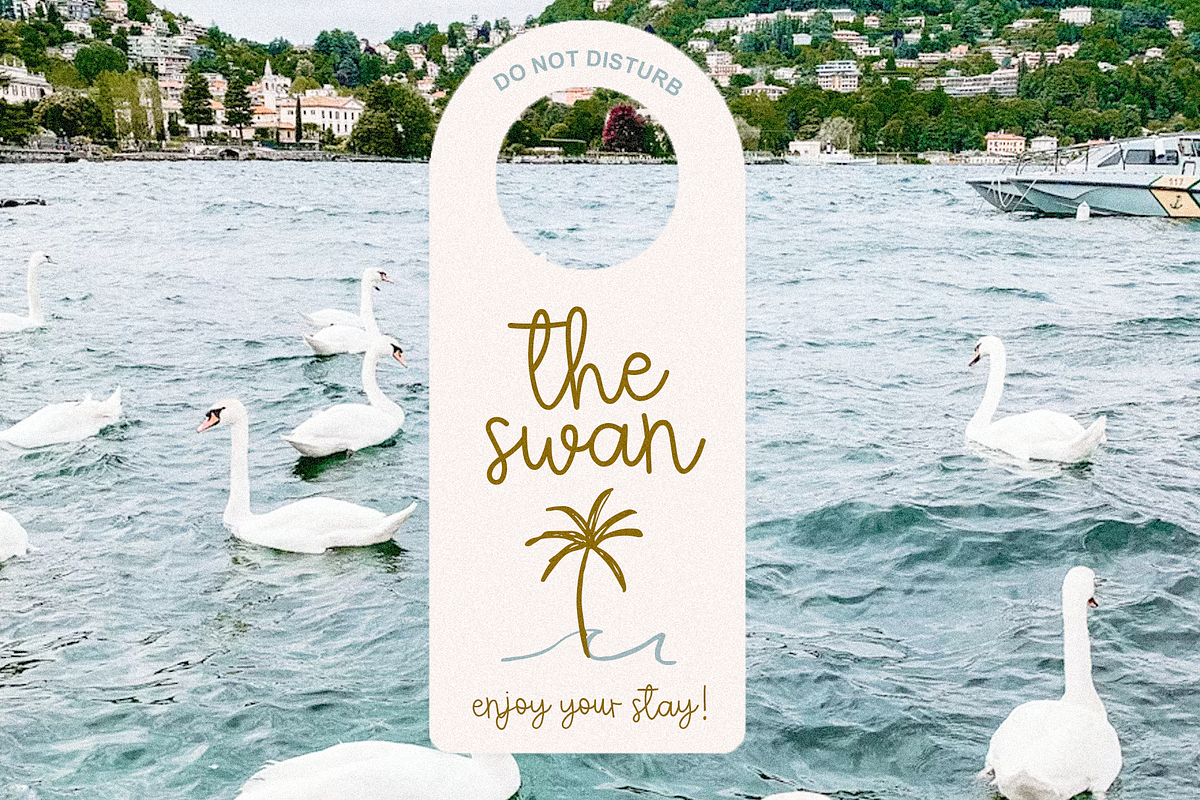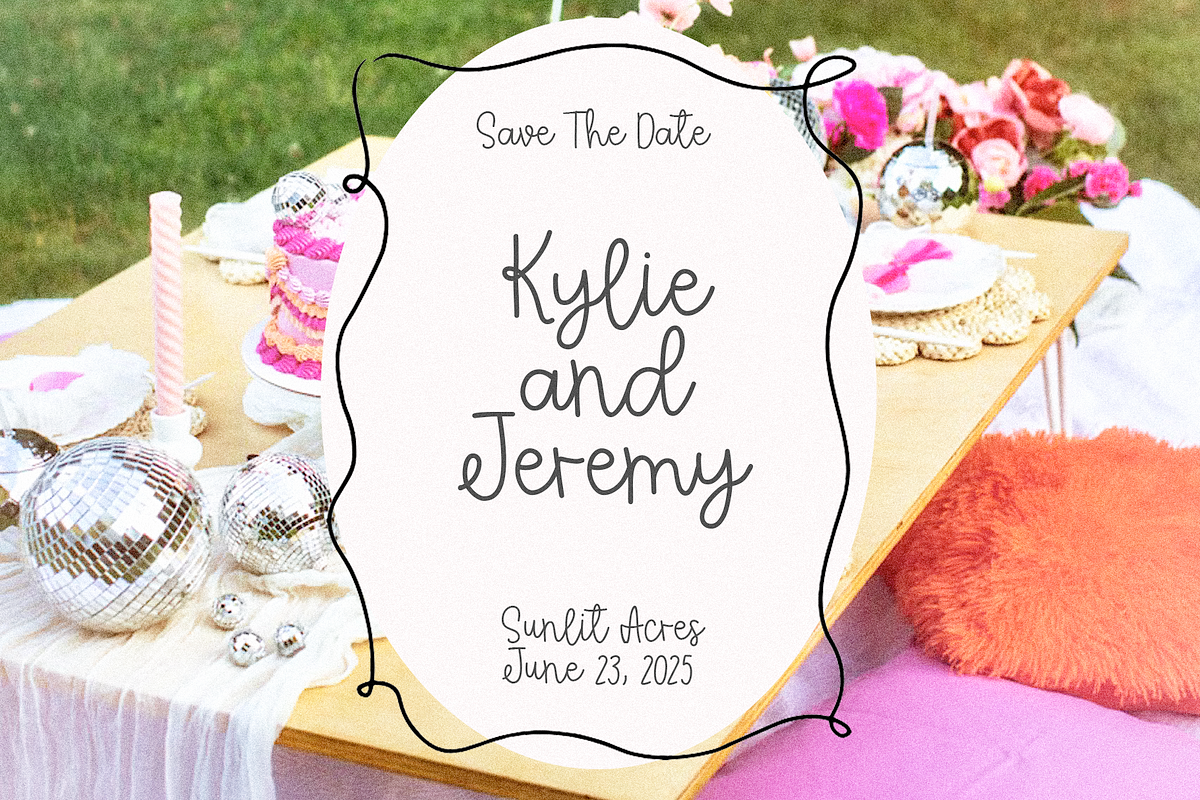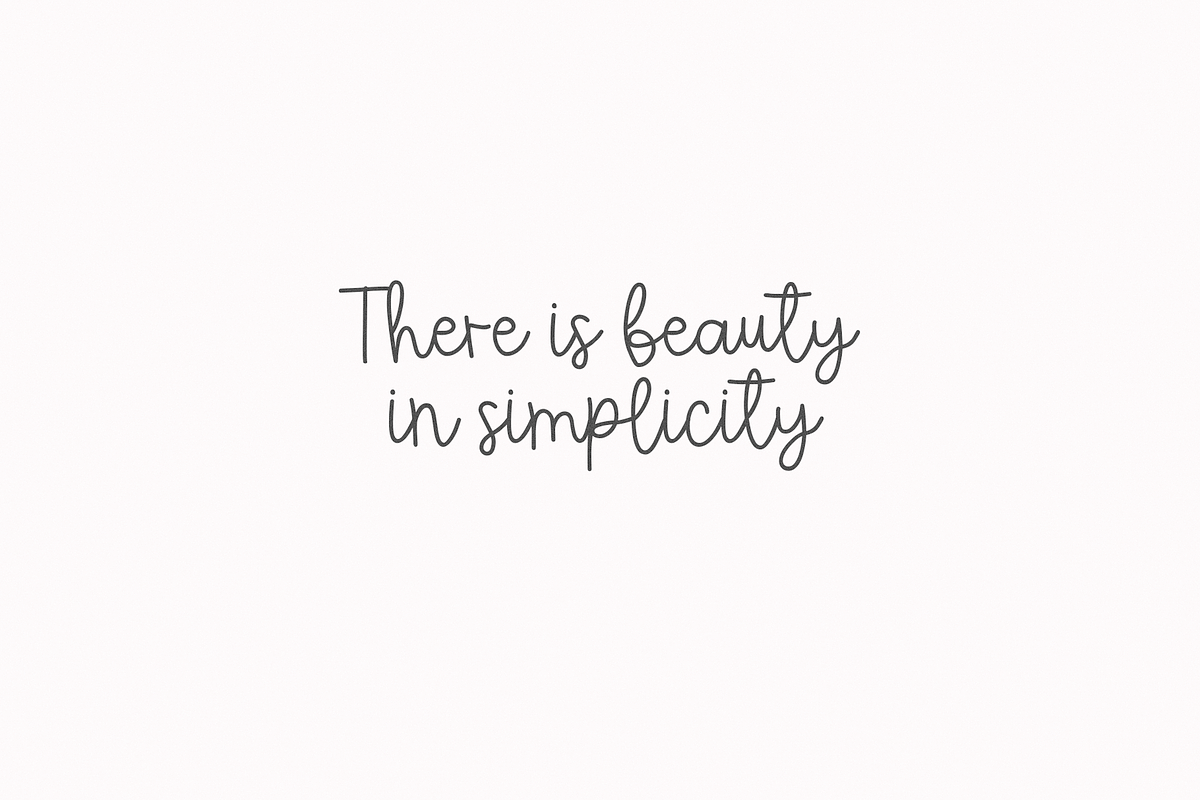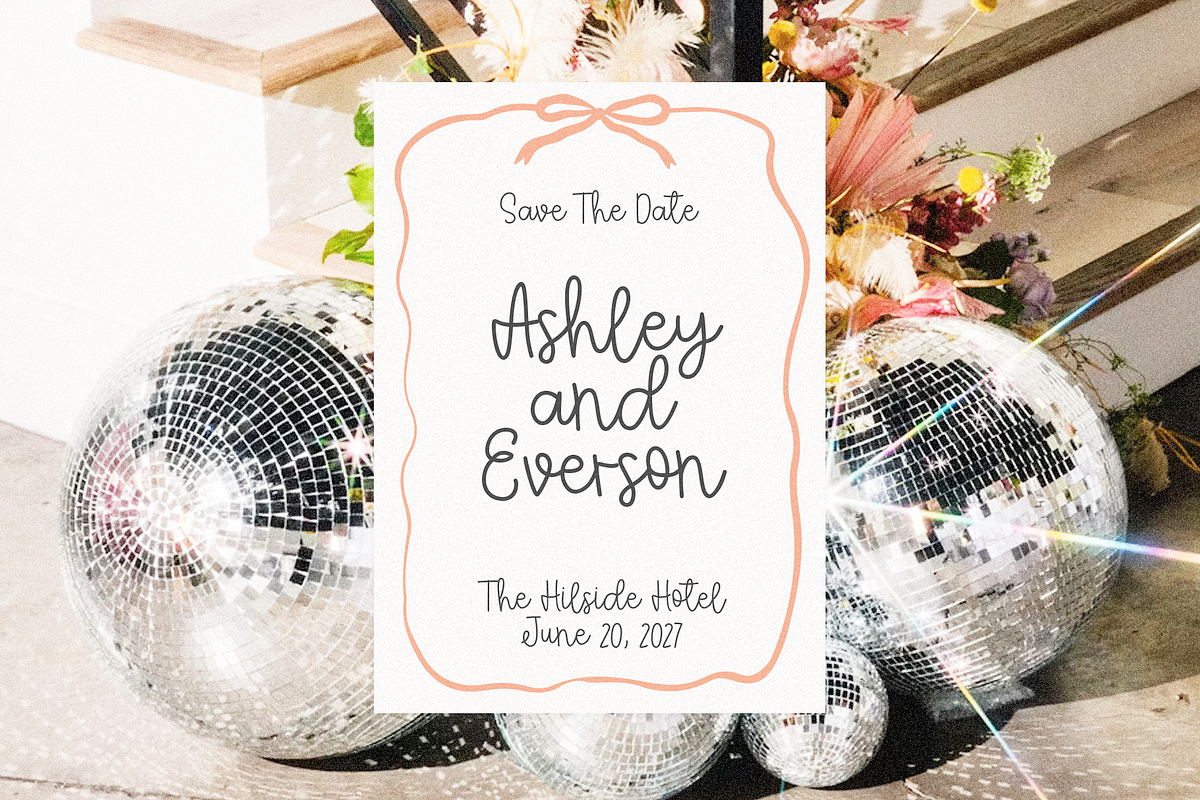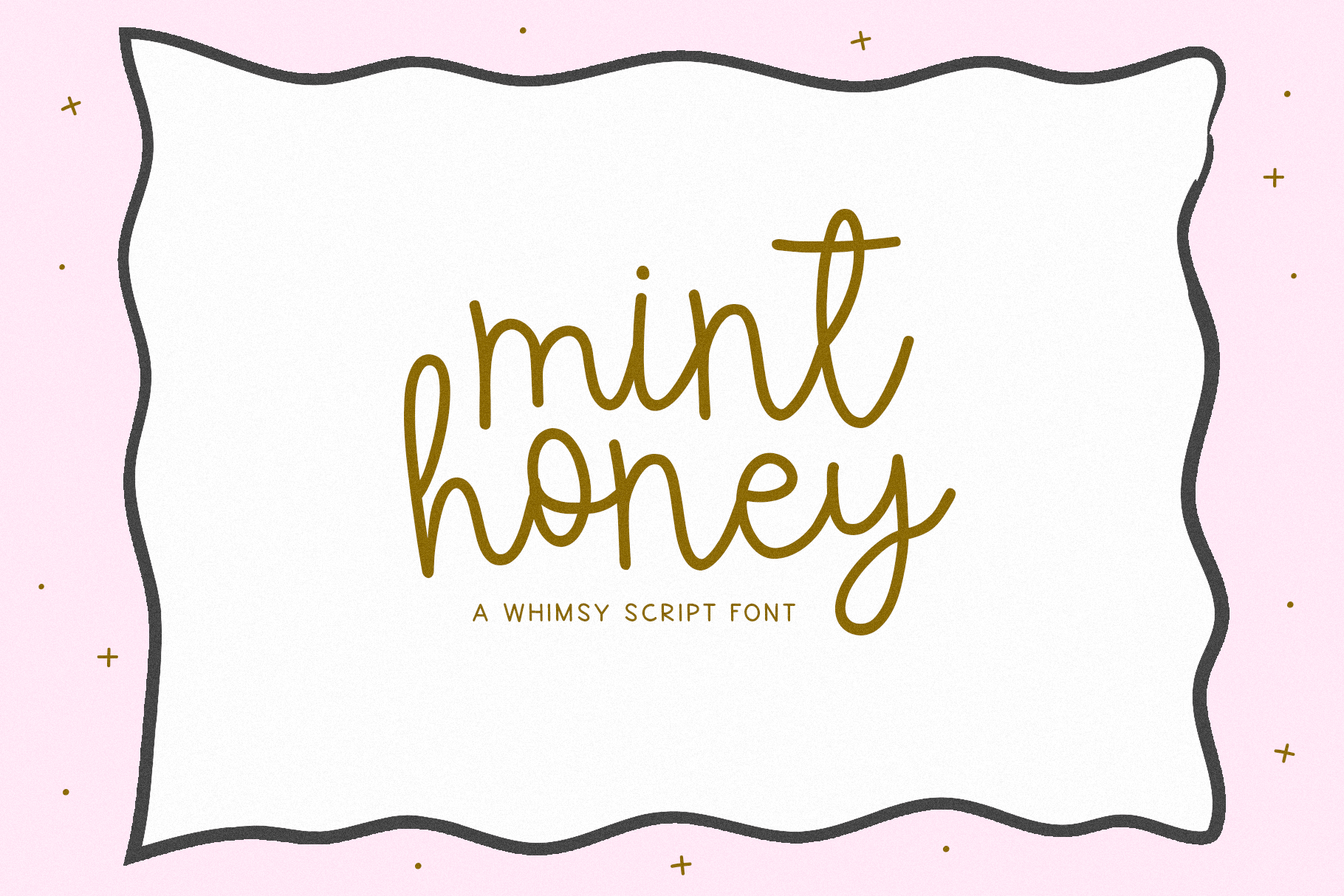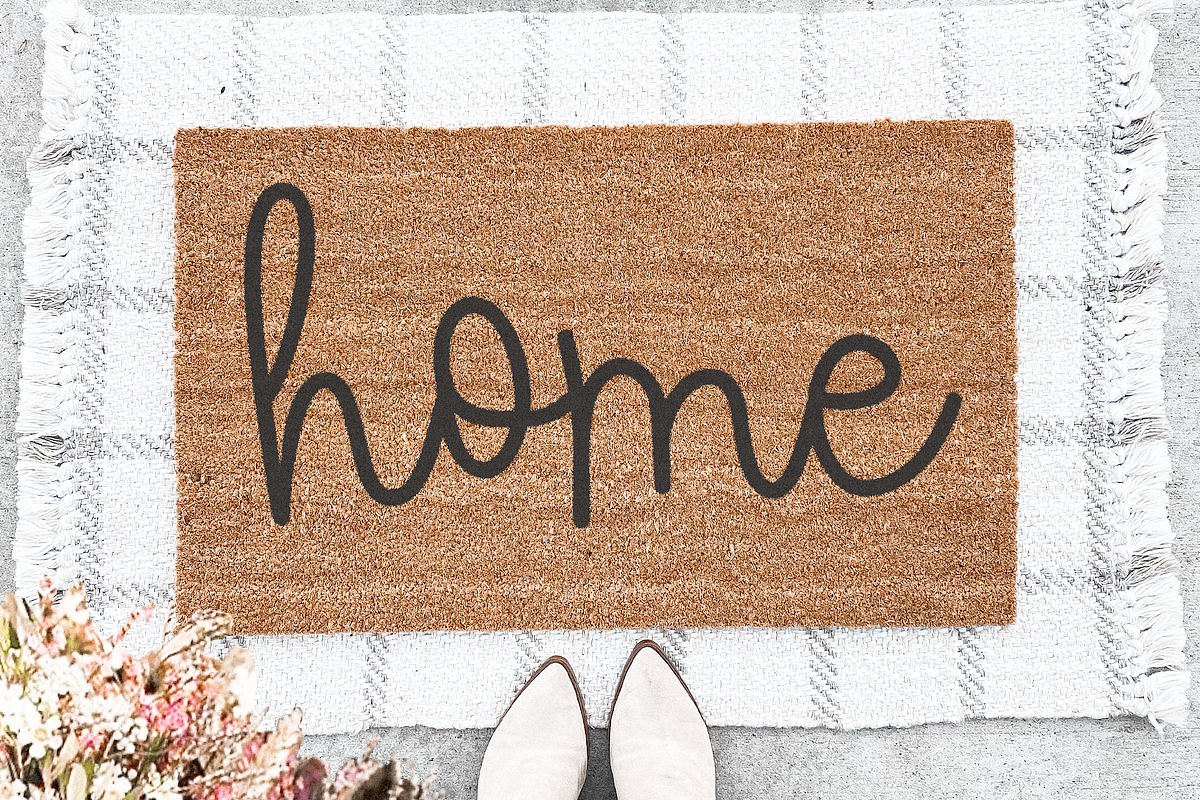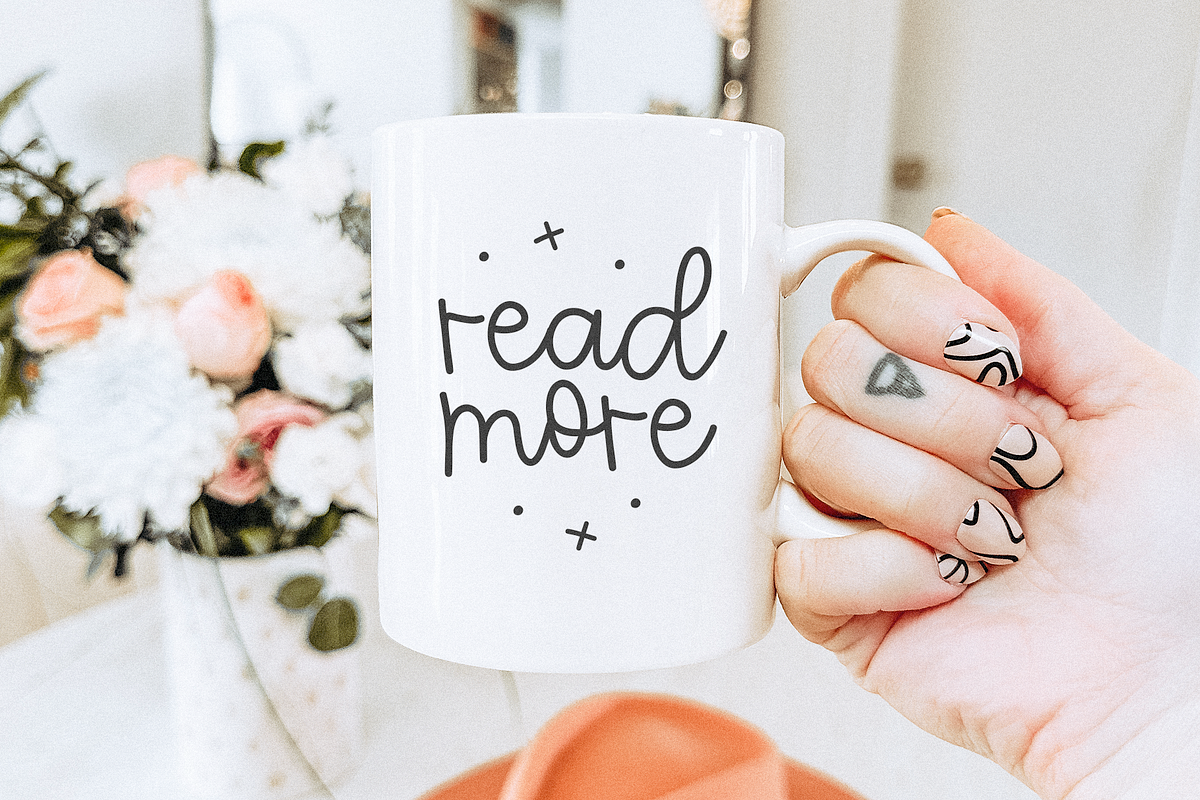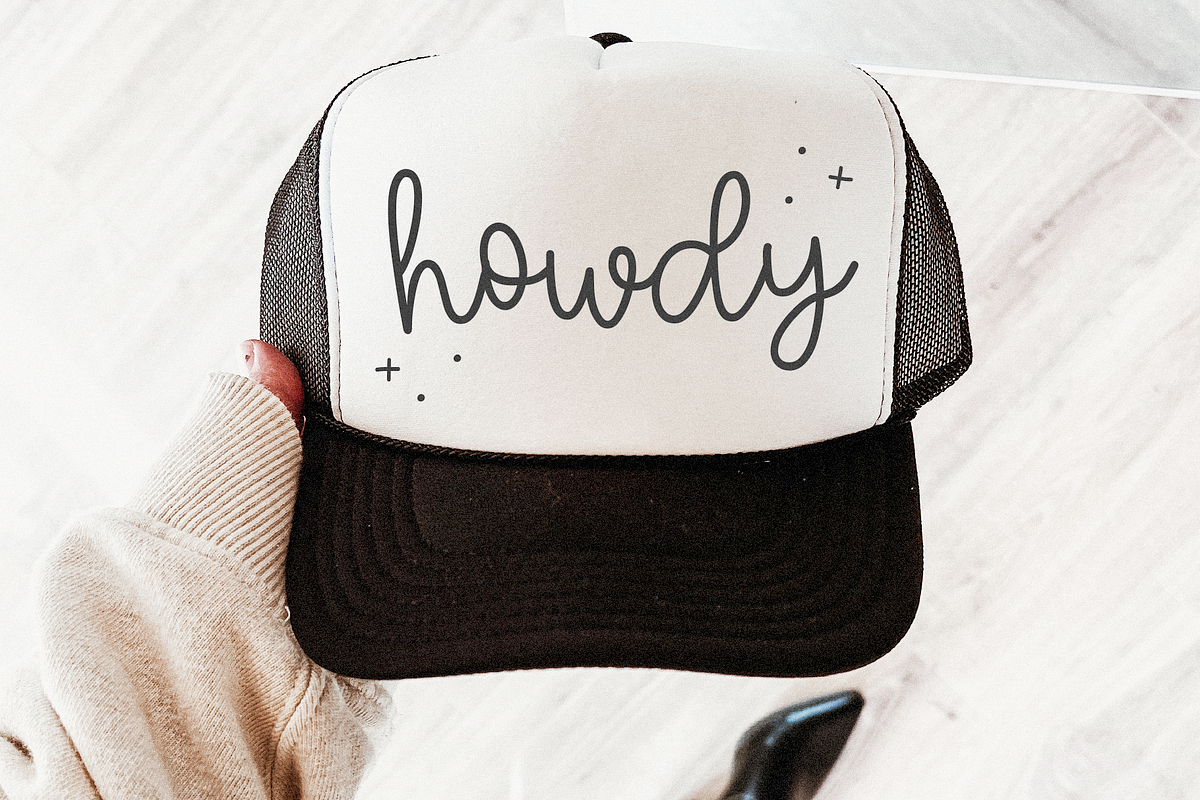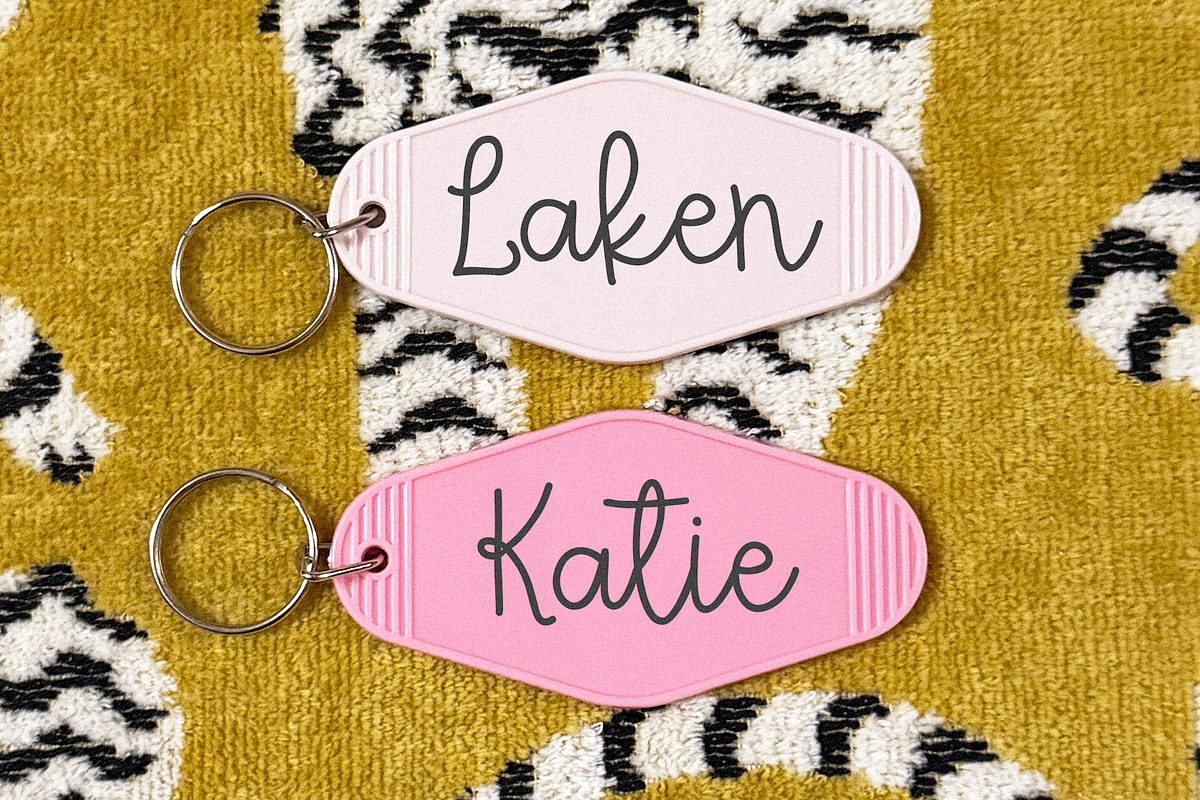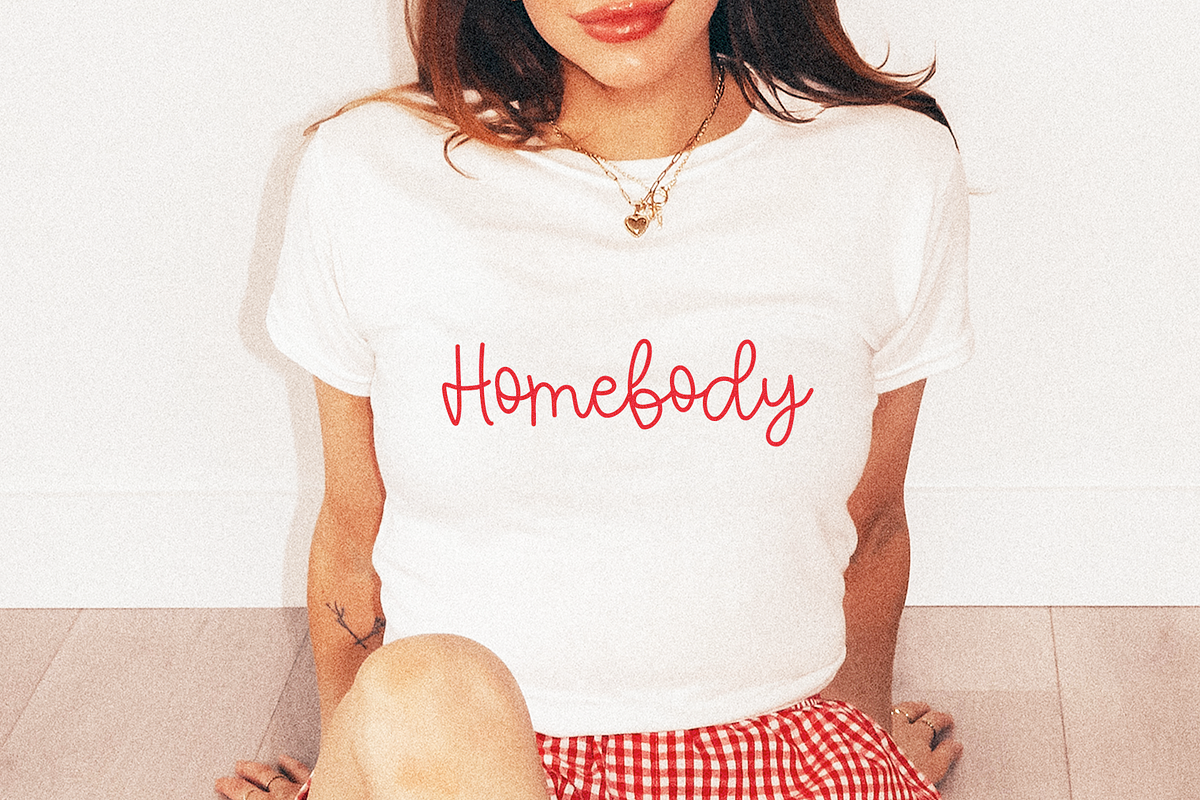
Mint Honey | Whimsy Script Font
Mint Honey is a cute handwritten script font.
This font is perfect for wedding decor, invitations, canva projects, cricut, logos, teachers, goodnotes, planners and more!